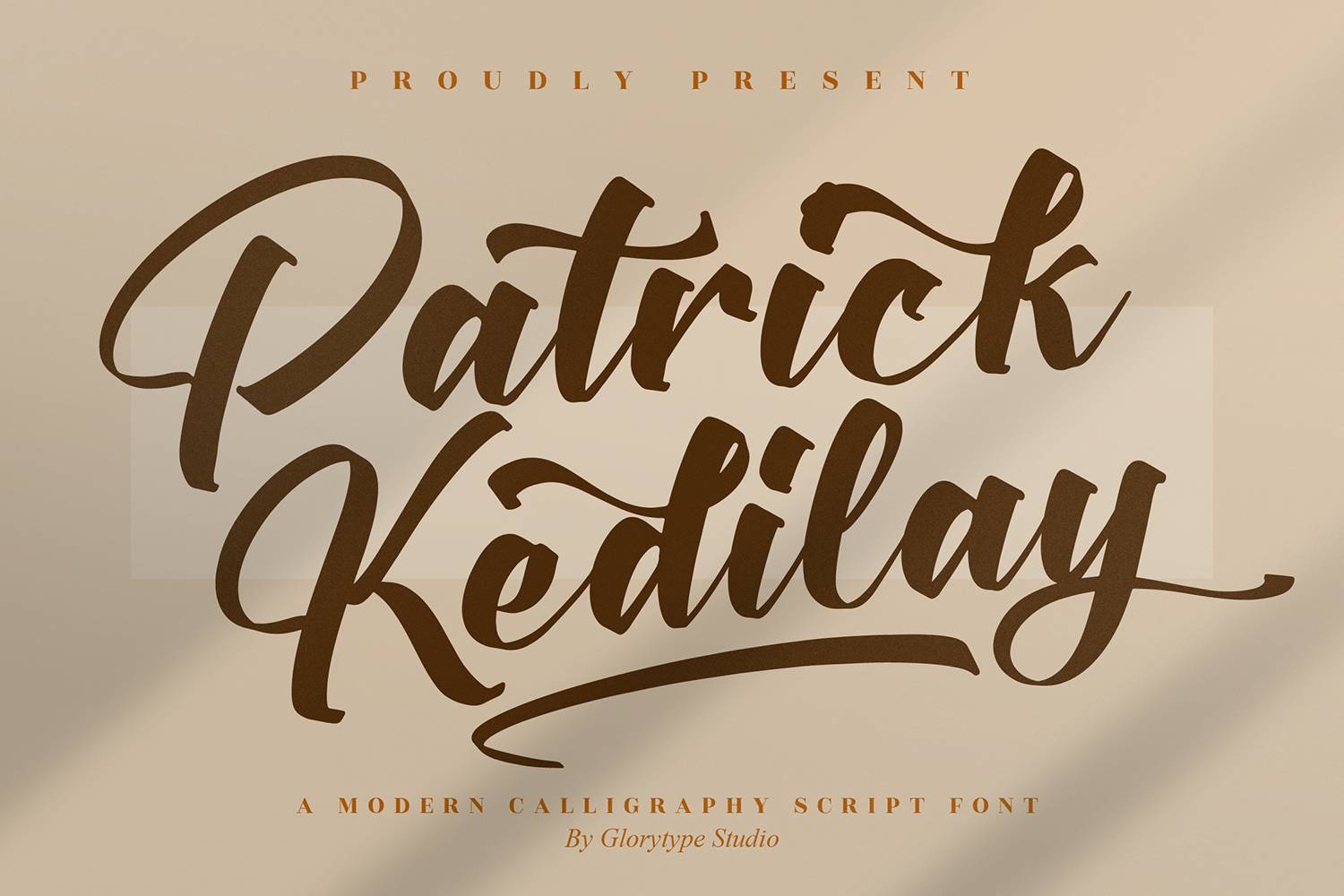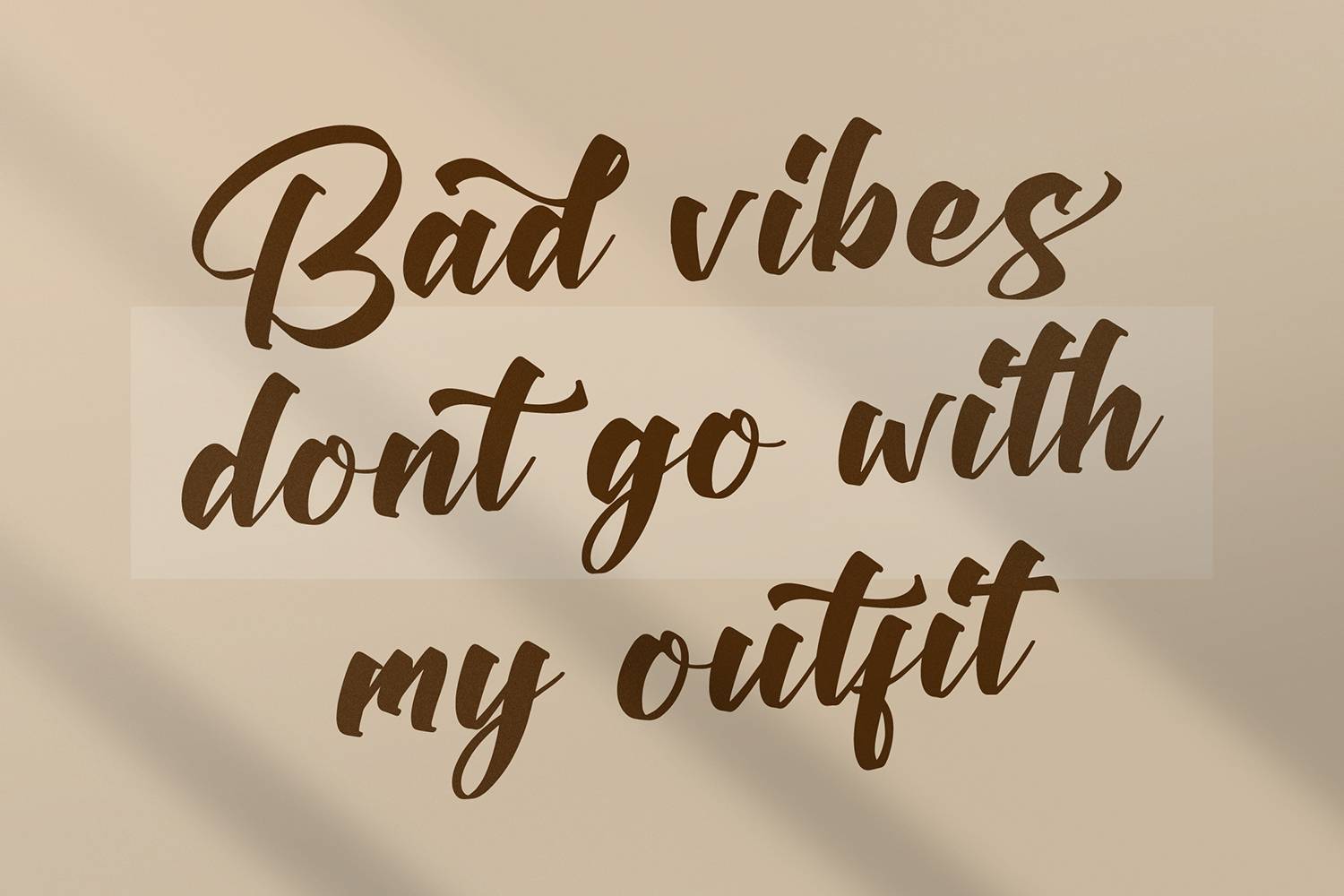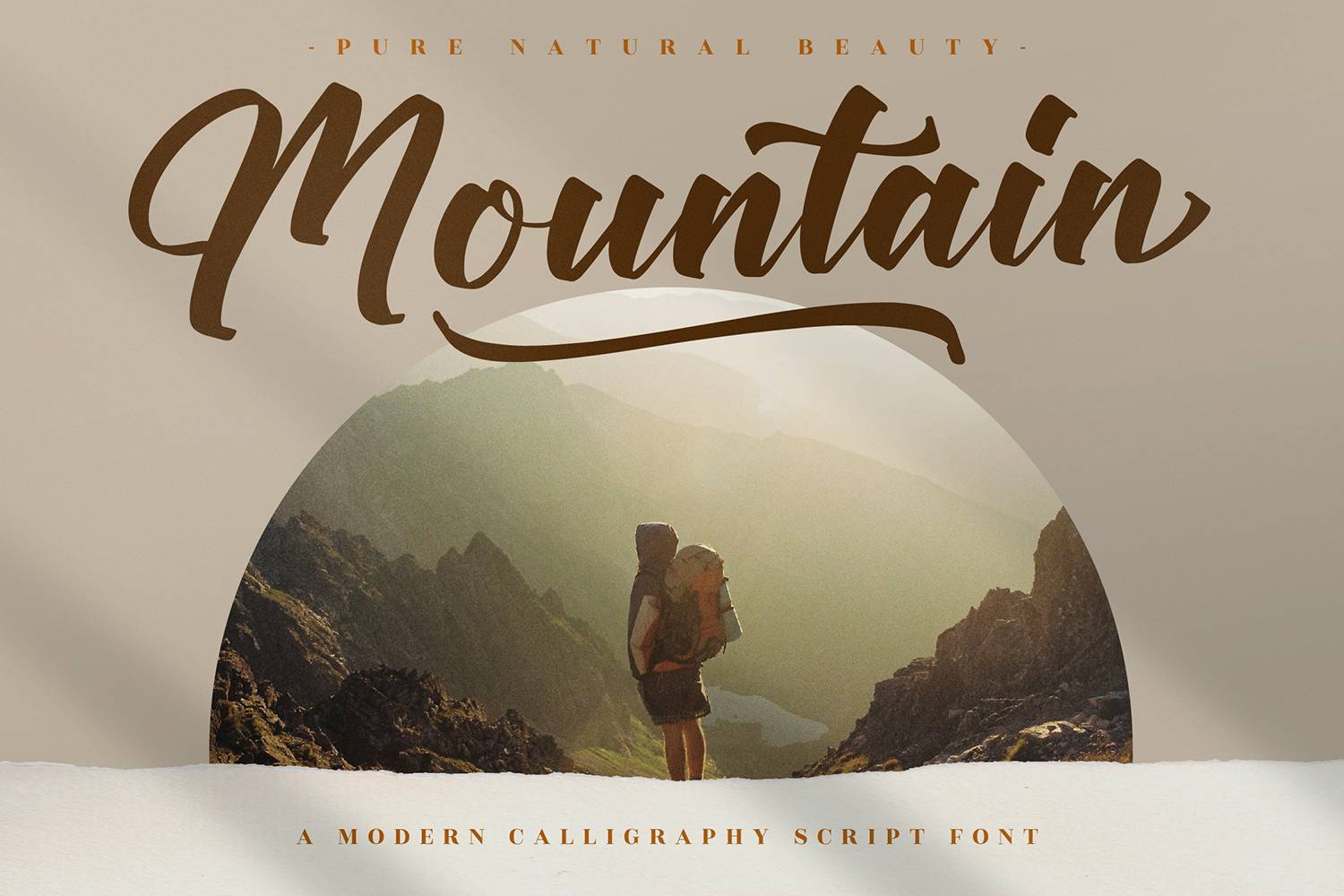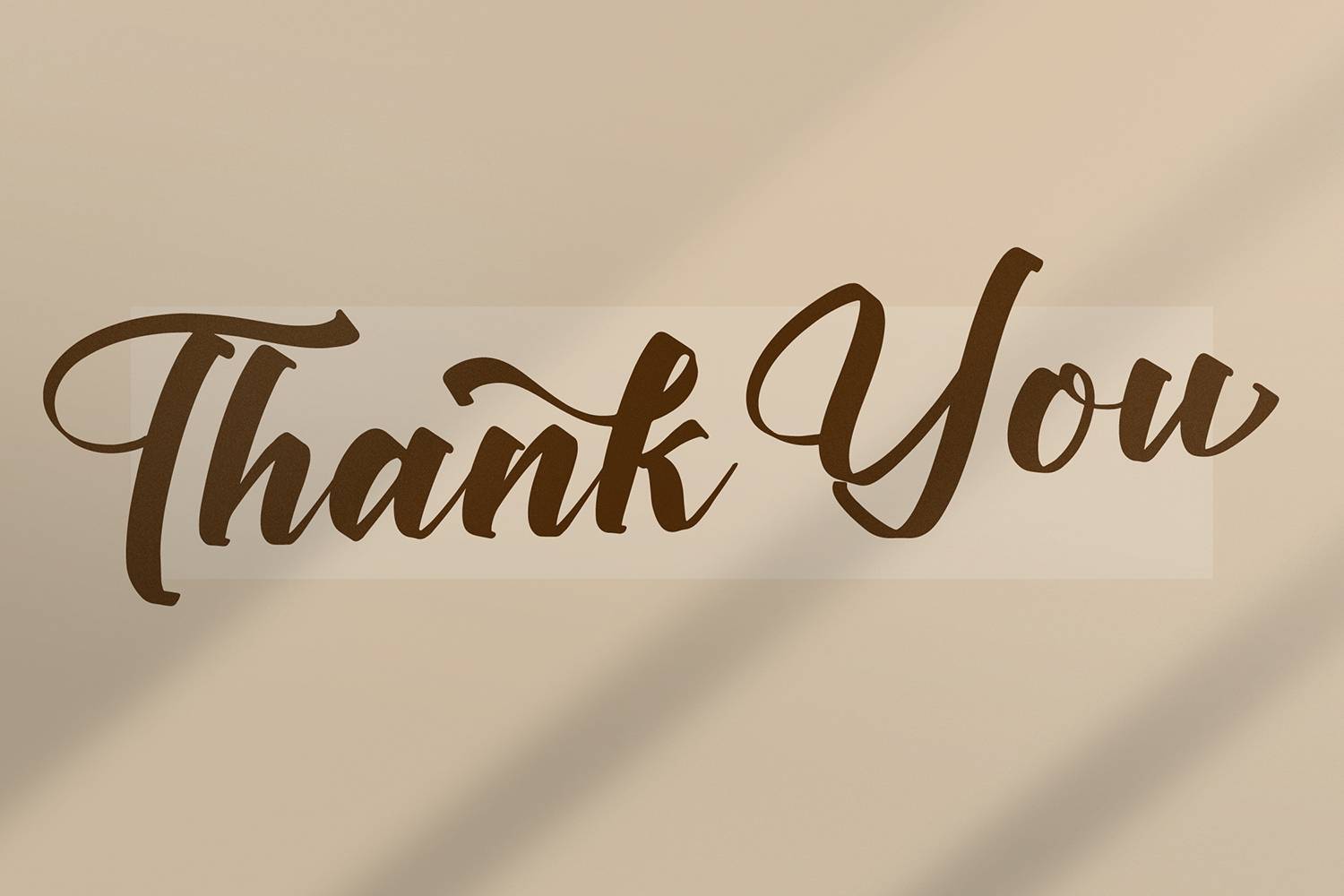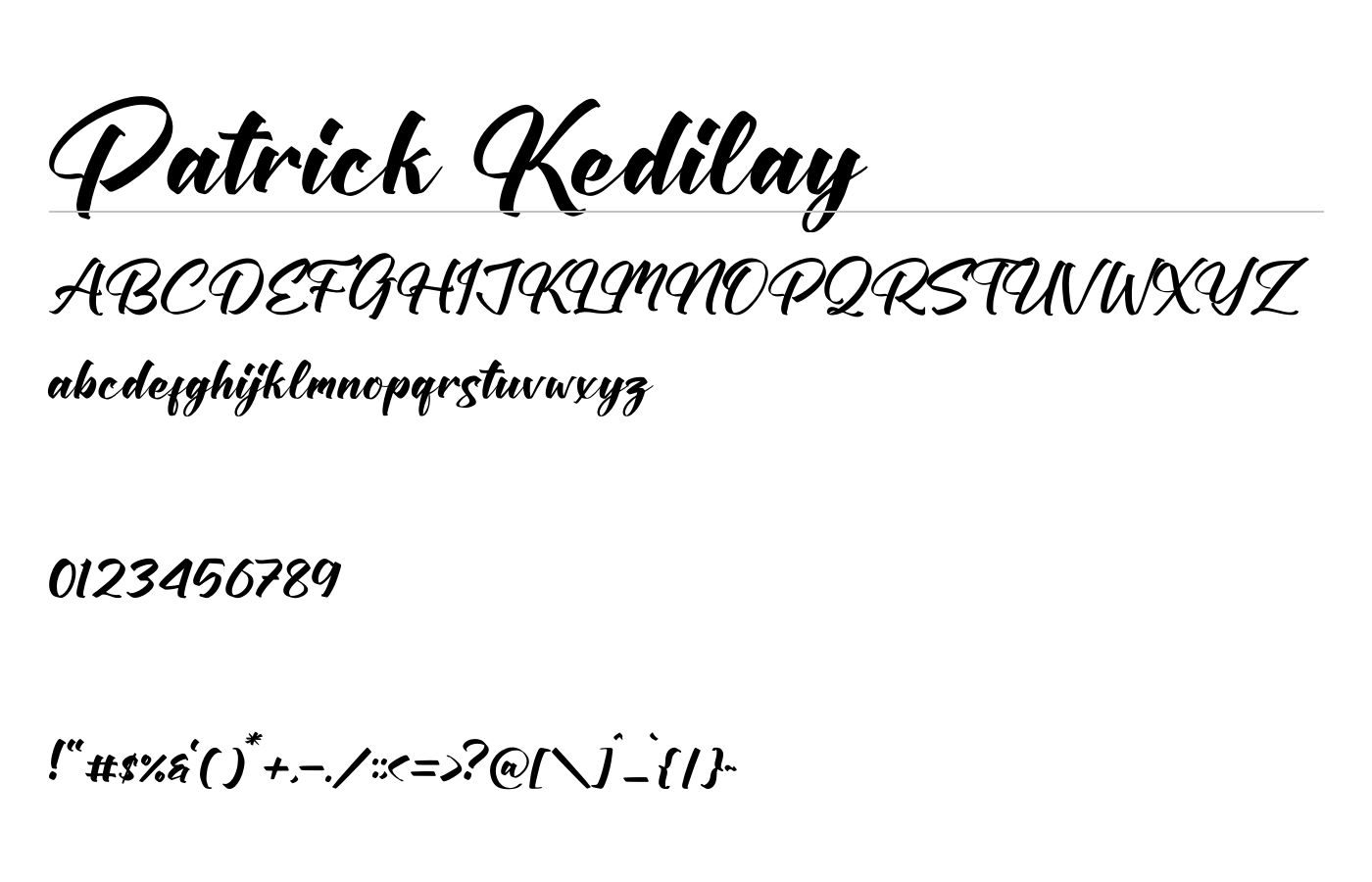
Patrick Kedilay is a stylish script font with a bold, brush-like texture that gives it a lively and personal touch. Its smooth, flowing strokes and slightly slanted letterforms make it perfect for elegant invitations, branding, and eye-catching headlines that require a warm and creative flair. This font works well in designs aiming for a modern yet approachable and artistic vibe.
Patrick Kedilay Font